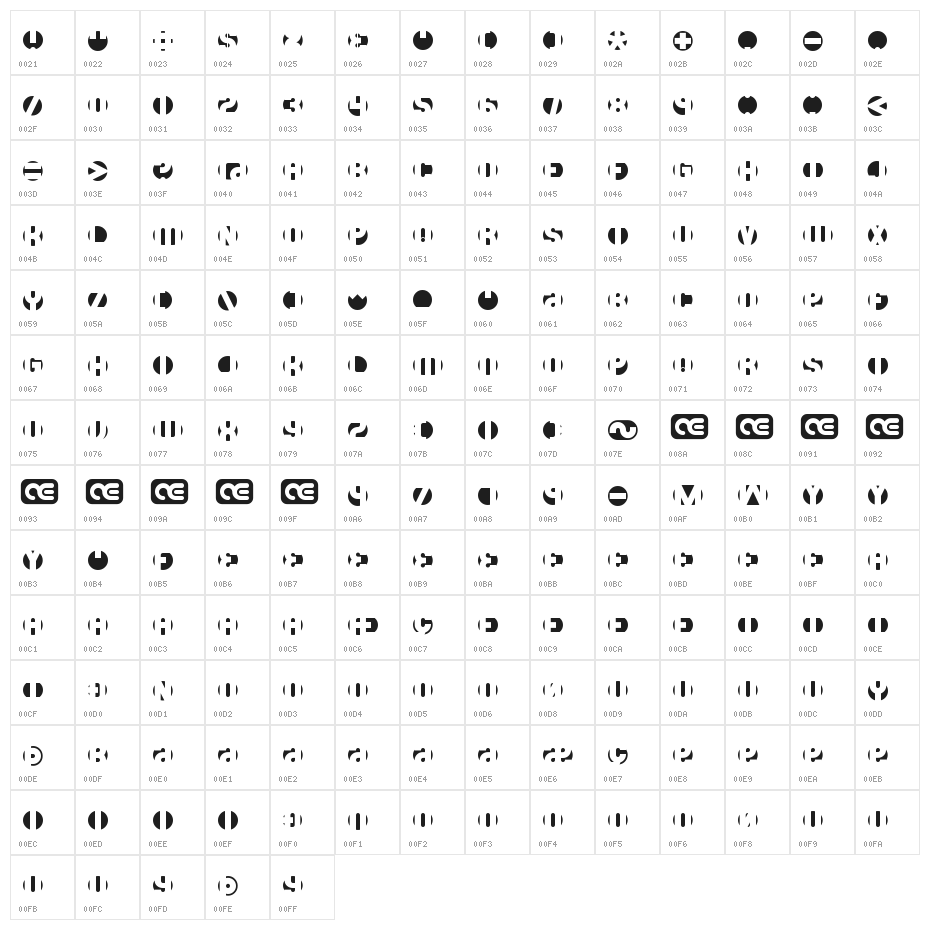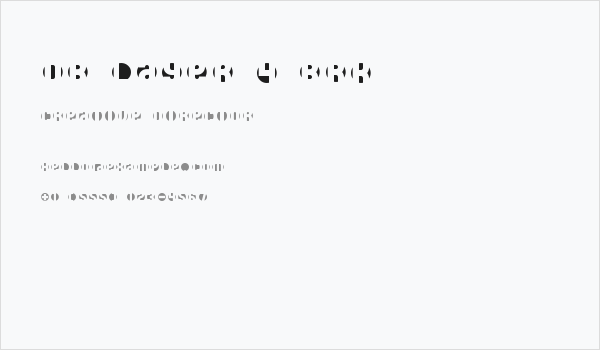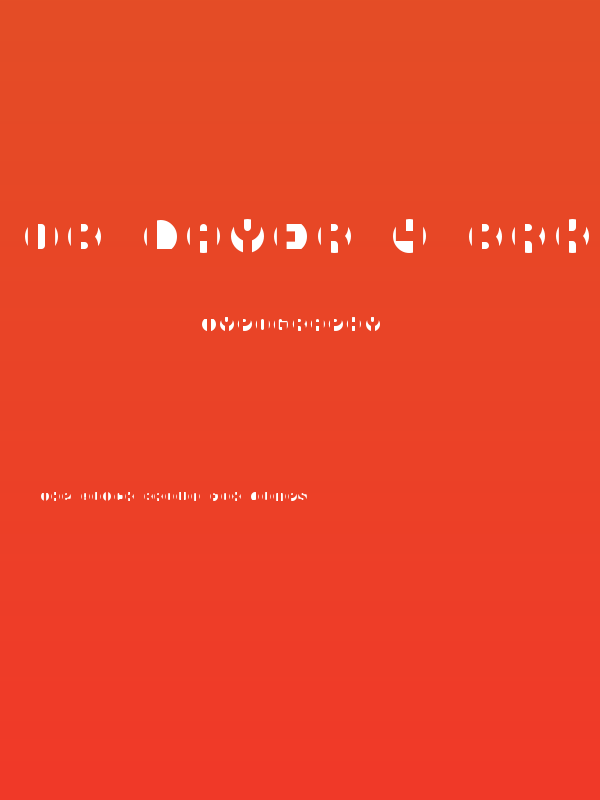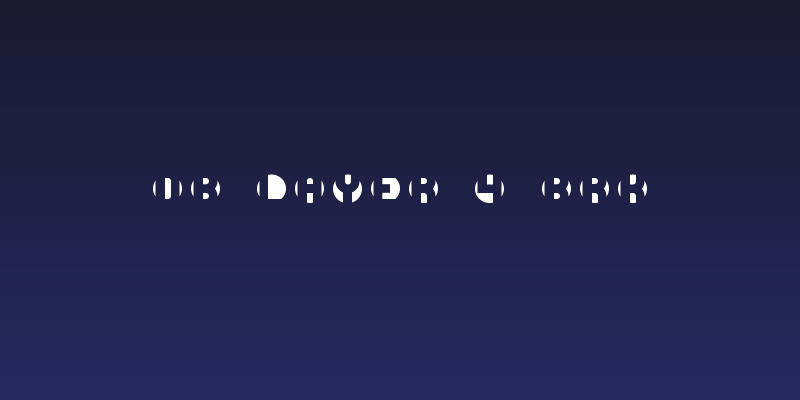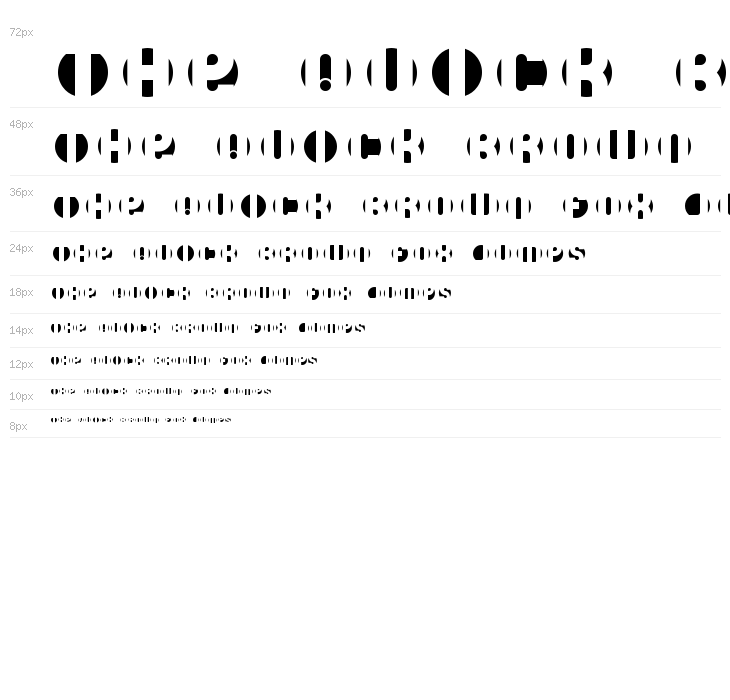
DB Layer 4 BRK Font
DB Layer 4 BRK Description
This font features a highly abstract and geometric design, characterized by its use of circular and semi-circular shapes to form each character. The letters and numbers are constructed with a series of bold, black strokes that create a sense of rhythm and movement. The font's unique style is achieved through the strategic use of negative space, which forms the recognizable shapes of each character. This design choice gives the font a futuristic and avant-garde appearance, making it stand out in any context. The overall aesthetic is both modern and artistic, with a playful yet sophisticated vibe. The font's distinctiveness makes it ideal for creative projects that require a strong visual impact.
| Overall Style | Modern, Futuristic, Artistic |
| Proposed Projects | Ideal for modern art projects, futuristic branding, album covers, and creative advertising campaigns. |